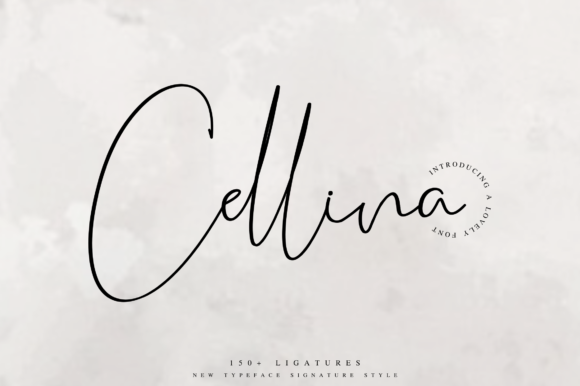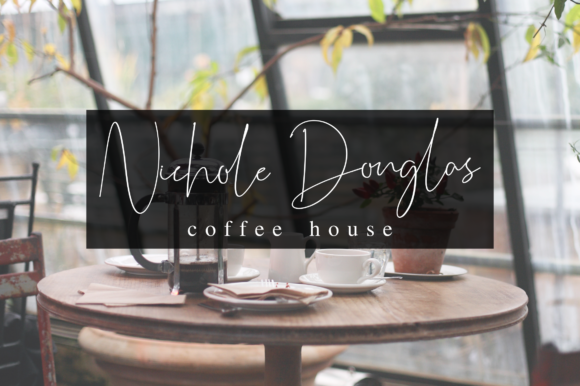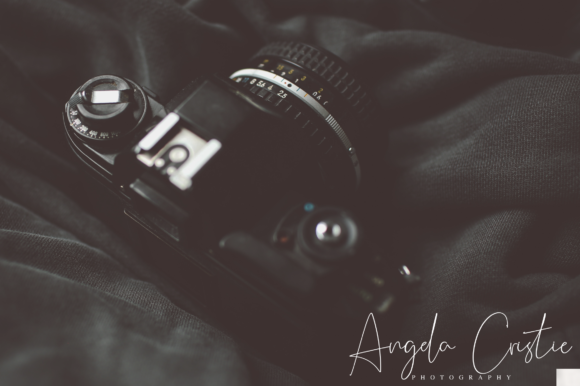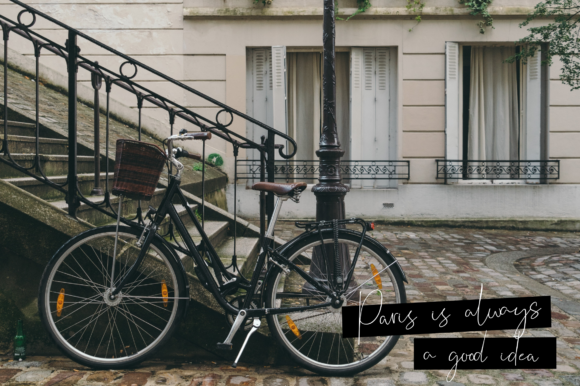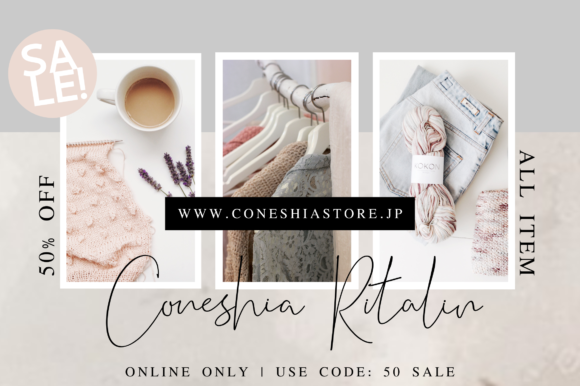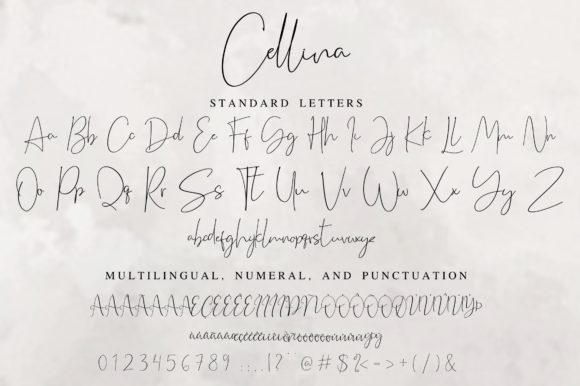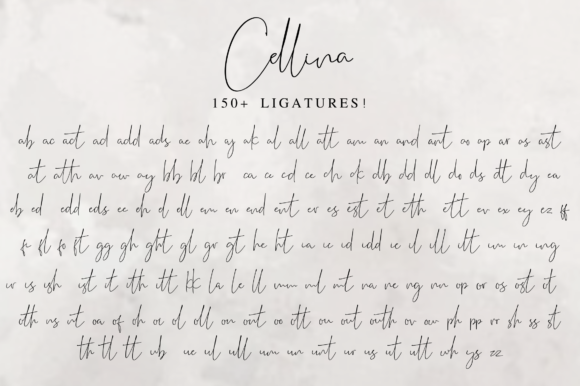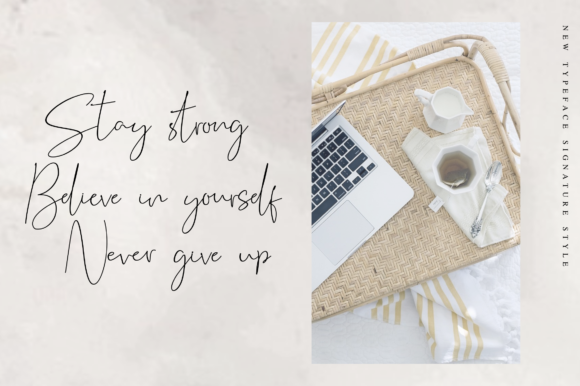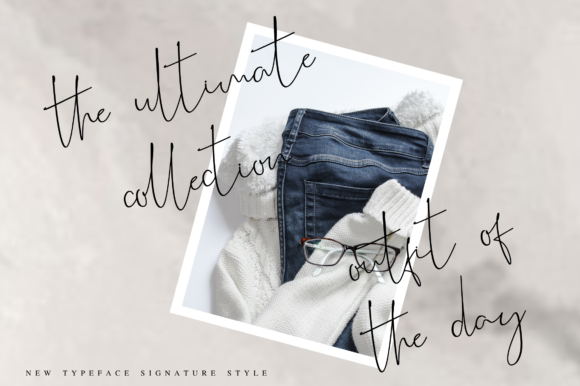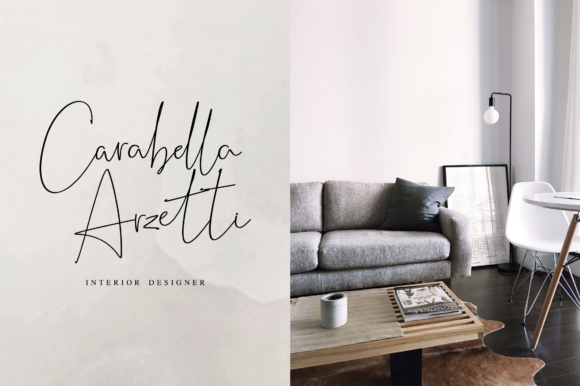
HomeScript FontsCellina Font Script Fonts Cellina Font FacebookXPinterestWhatsApp Cellina Font Poster 2 Cellina Font Poster 3 Cellina Font Poster 4 Cellina Font Poster 5 Cellina Font Poster 6 Cellina Font Poster 7 Cellina Font Poster 8 Cellina Font Poster 9 Cellina Font Poster 10 Cellina Font Poster 11 Cellina Font Poster 12 Cellina Font Poster 13 Cellina Font Poster 14 Cellina Font Poster 15 Cellina Font Poster 16 About Cellina Font Celina is a bold and beautiful font that will add a splash of personality to any design project! DOWNLOAD NOW People also explored Scratched Brush Script Allegro Sans Font Young Lady Font Body Goat Benillia Font Jettiares Font Angler Fish Font Love Story Font Dandelion Font 285 0 TagsCellina Font Previous articleRosita FontNext articleBohema Spirit Font LEAVE A REPLY Cancel reply Comment: Please enter your comment! Name:* Please enter your name here Email:* You have entered an incorrect email address! Please enter your email address here Website: Save my name, email, and website in this browser for the next time I comment. Personal Use Free Baby Cute Personal Use Free Read more about this font Knox Personal Use Free Read more about this font Evelyne Personal Use Free Read more about this font BD Lofi Personal Use Free Read more about this font BLOG 5 Fonts That Will Dominate Design Trends in 2026 5 Fonts for 2026 That Will Dominate Design Trends Typography plays a critical role in visual communication, and as we look ahead to 2026, it’s... Modern Sans-Serif Fonts That Brands Love in 2025 Elegant Wedding Invitation Fonts – Handwritten & Script Fonts Top 7 Google Fonts Alternatives for Faster and Privacy-Friendly Web Design (2025)